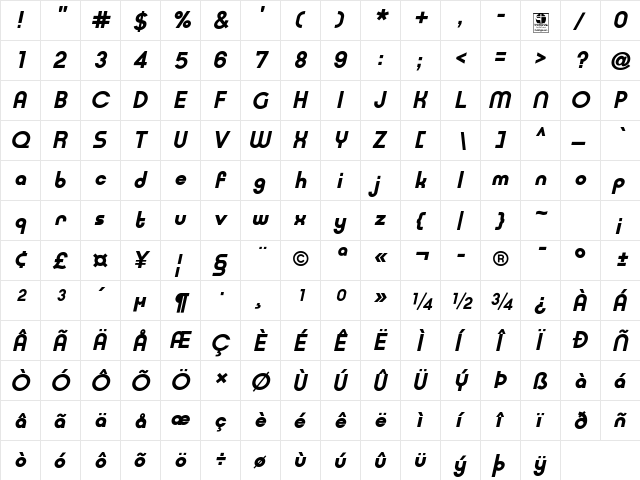
Typo Ring Demo Bold Italic
Design Context for Typo Ring Demo Typeface
Typo Ring Demo offers clean, dependable letterforms without strong stylistic allegiance, making it a practical choice for designers who need flexibility. The dynamic lean of this cut emphasises speed and emphasis in any layout. The heavy weight commands attention and anchors typographic hierarchies.